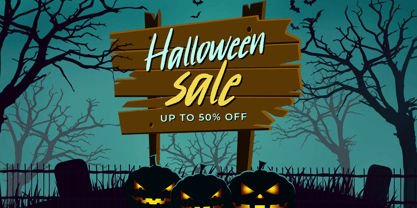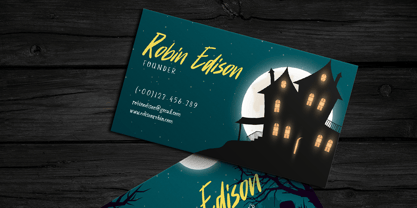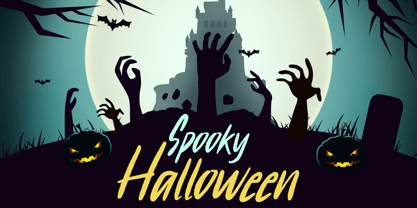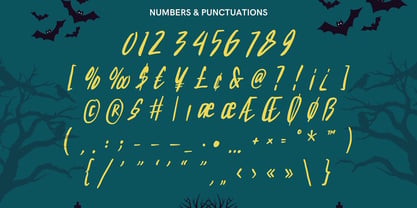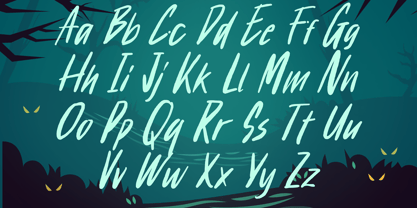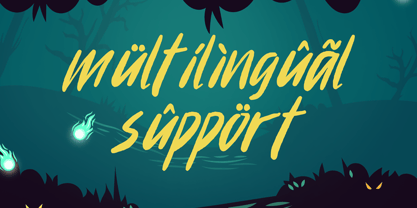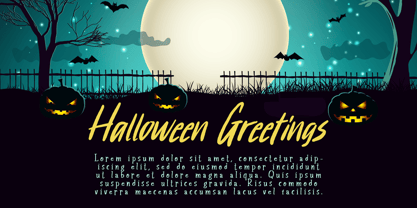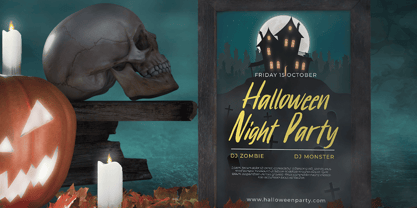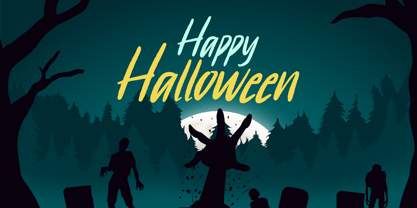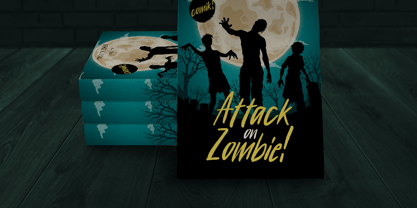
Velunea
Die Schriftfamilie Velunea wurde von Olivia Love entworfen und von Only Fonts veröffentlicht. Velunea enthält 1 Stile. Mehr über diese Familie
Velunea – Scary Halloween Display Font Velunea is a haunting Halloween display font designed to evoke mystery, darkness, and a spine-chilling atmosphere for your creative projects. Drawing inspiration from classic horror stories, eerie folklore, and abandoned places, Velunea features sharp, jagged letterforms and dramatic details that instantly capture the essence of Halloween. Each character is meticulously crafted to create typography that feels unsettling, powerful, and unforgettable. Ideal for Halloween posters, haunted house promotions, horror movie titles, spooky event invitations, escape room branding, game graphics, party decorations, book covers, social media campaigns, and seasonal merchandise, Velunea adds an eerie visual impact that stands out in both print and digital media. Its distinctive horror-inspired style creates a chilling mood while ensuring excellent readability for bold headlines and creative branding. Designed for creators seeking typography that tells a dark and mysterious story, Velunea's dramatic shapes and handcrafted details evoke ancient legends, haunted forests, forgotten castles, and supernatural tales, allowing your designs to immerse audiences in an unforgettable Halloween experience. Whether you're crafting promotional artwork or horror-themed branding, Velunea strikes the perfect balance of fear, creativity, and style. Velunea Font Features: • Unique scary display characters • Uppercase and lowercase letters • Numerals, punctuation, and symbols • OpenType features • Multilingual support • Perfect for Halloween, horror, haunted attractions, posters, and branding • Bold and atmospheric typography style • Suitable for both print and digital projects